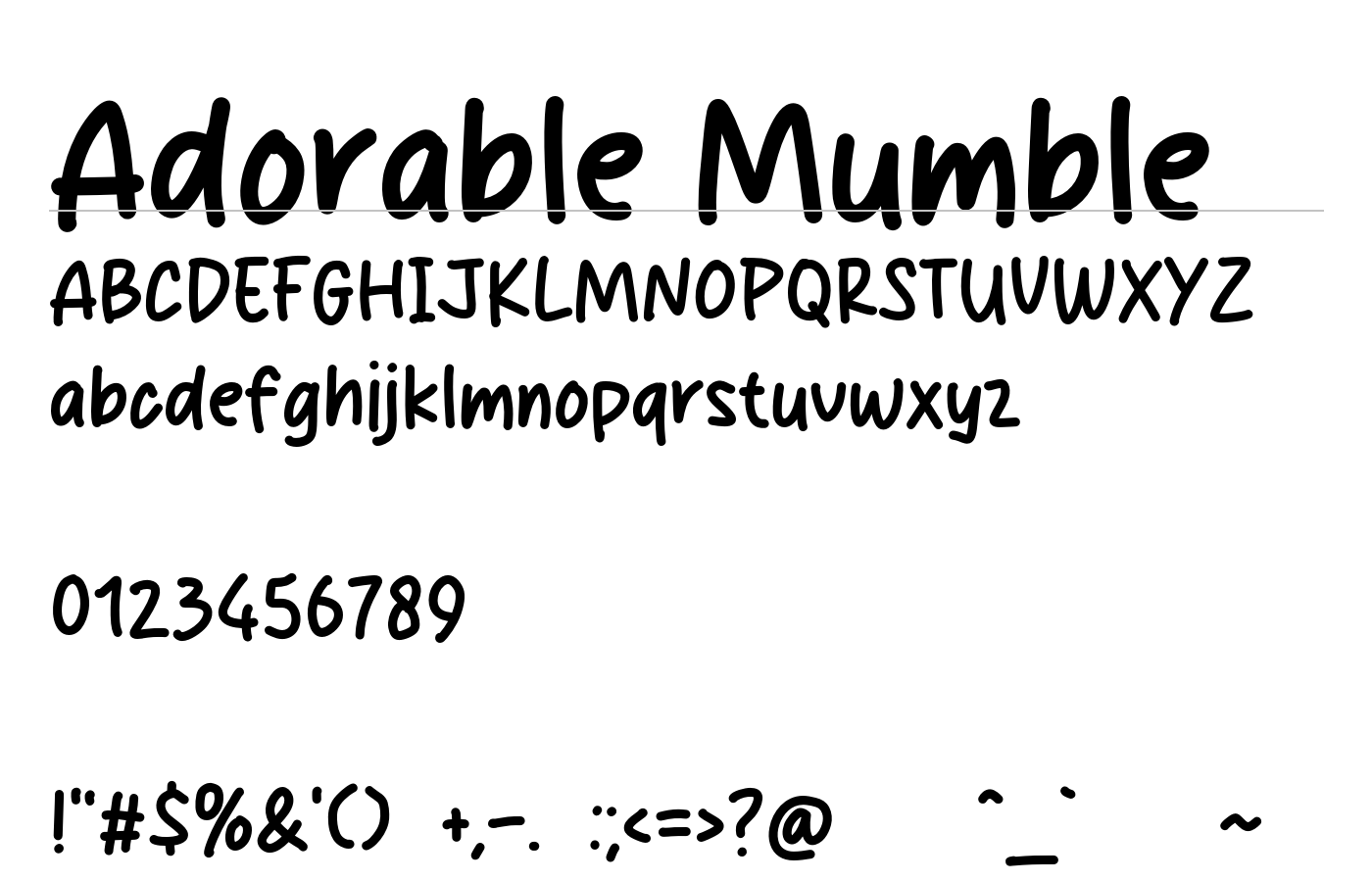
Adorable Mumble is a playful and casual handwritten sans serif font with a friendly, approachable vibe. It features rounded, slightly irregular strokes that mimic natural handwriting, making it perfect for informal and creative uses. This font works well for children's materials, greeting cards, and fun branding that seeks to convey warmth and personality.
Adorable Mumble Font
About Adorable Mumble Font